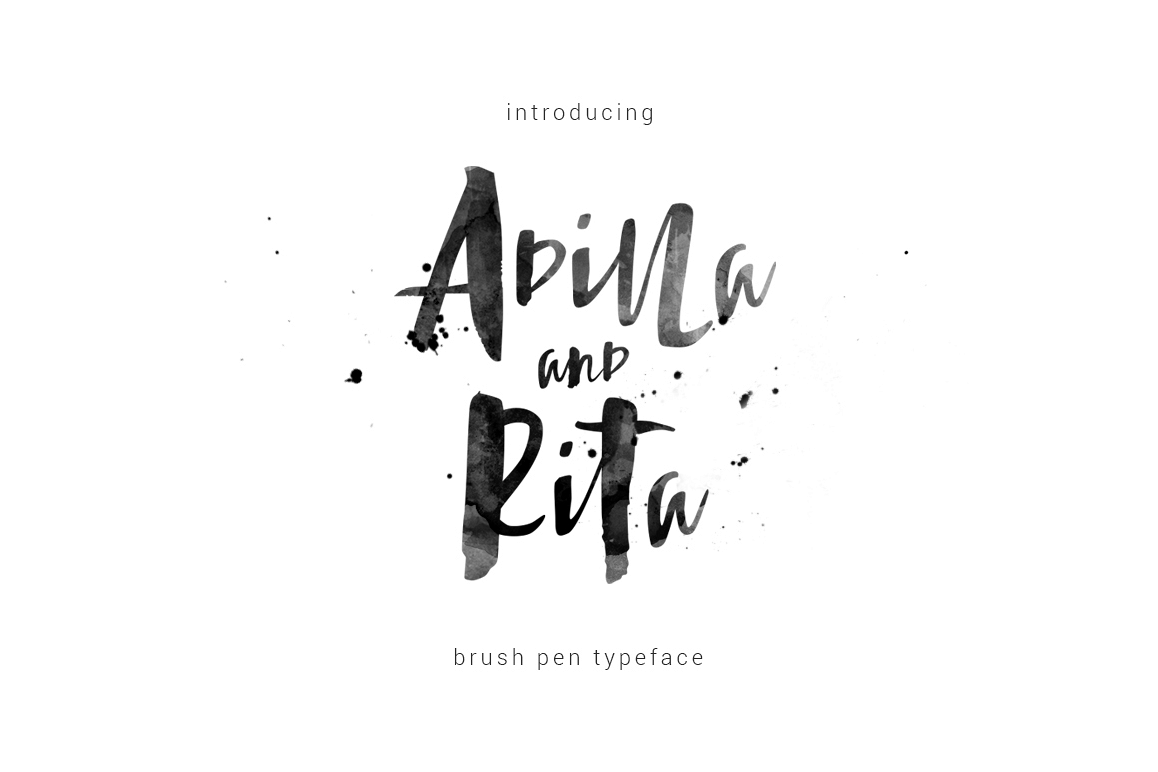
Adilla and Rita Typeface
Adilla and Rita.
Hello world..!! this is Adilla and Rita typeface, simple and easy to create awesome lettering, just type your words and then you will immediately see the great results.
Perfect for: using in ink or watercolor based designs or on its own as bold hand-brushed lettering.
Comes with upper and lowercase characters, large set of punctuation glyphs, numerals, and supports international languages. Can be used for various purposes. such as headings, logos, wedding invitation, t-shirt, letterhead, signage, label, news, posters, badges etc.
Adilla and Rita Typeface